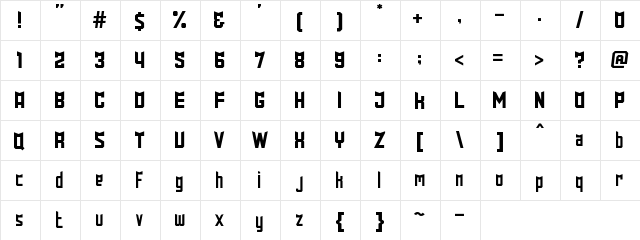
Damar Kurung Regular
Design Context for Damar Kurung Typeface
Damar Kurung is a composed and adaptable typeface that performs quietly and consistently across a wide range of design contexts.